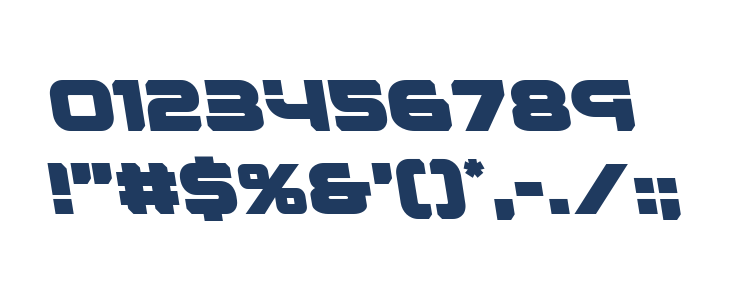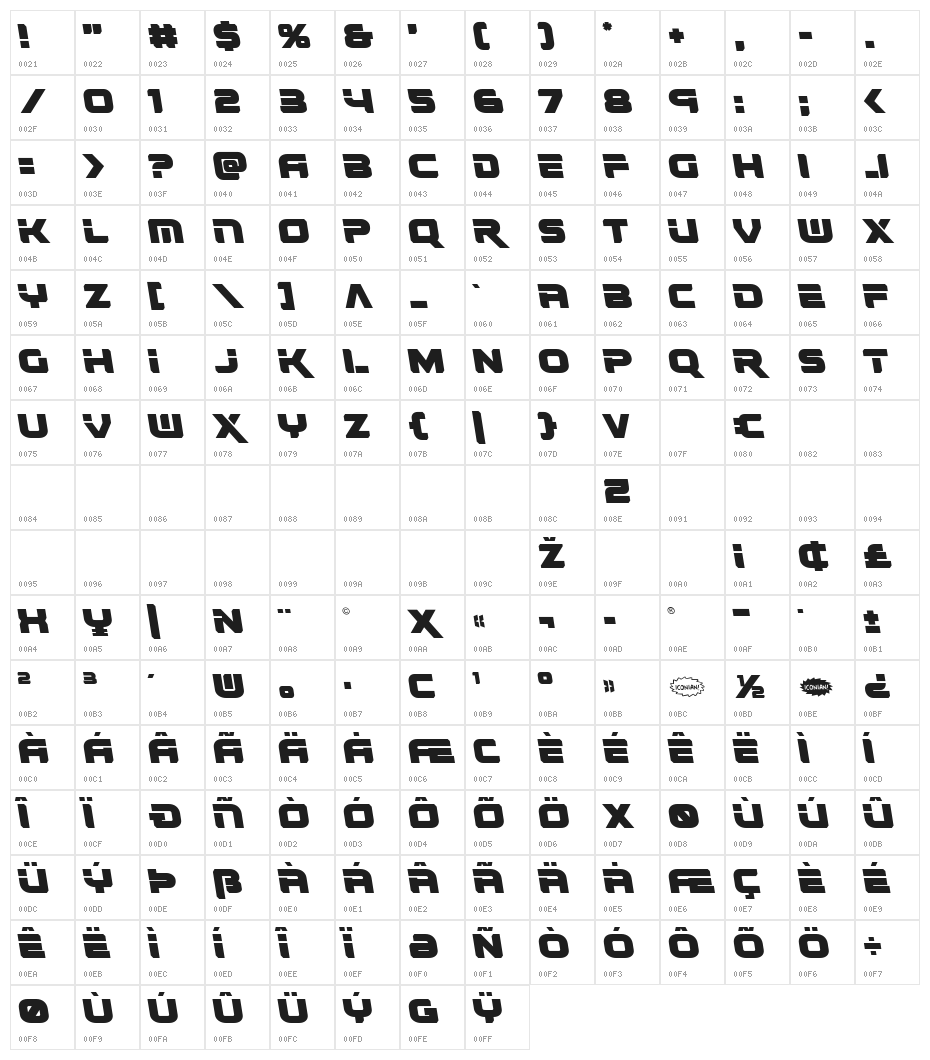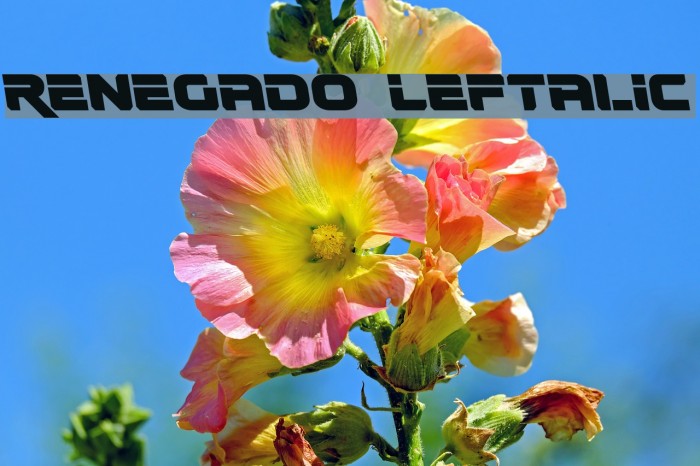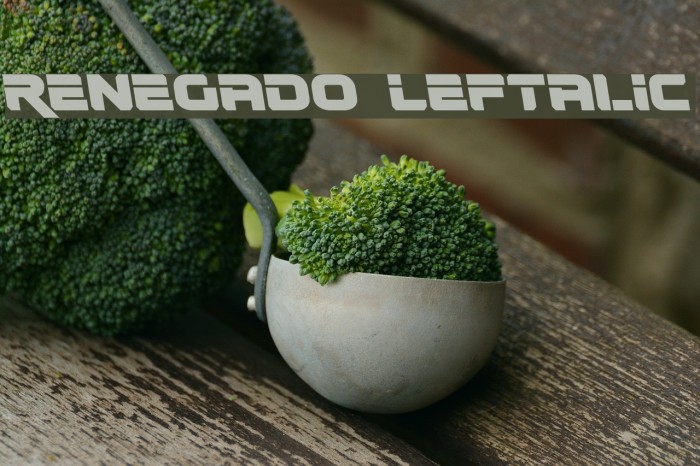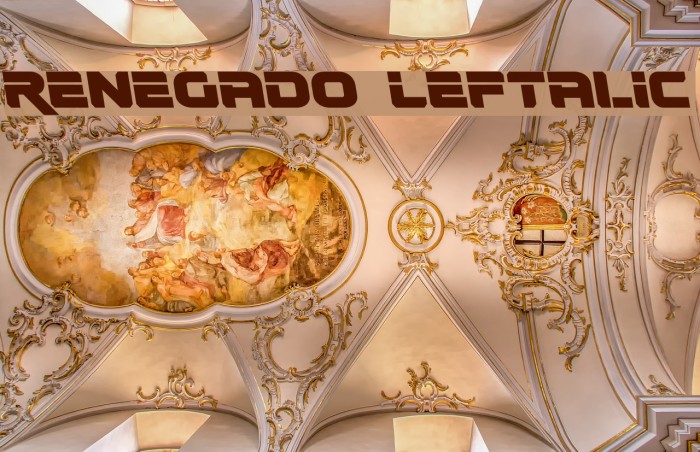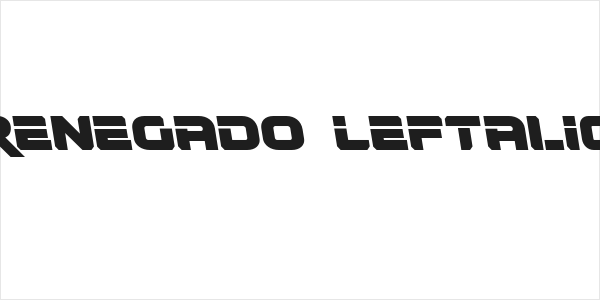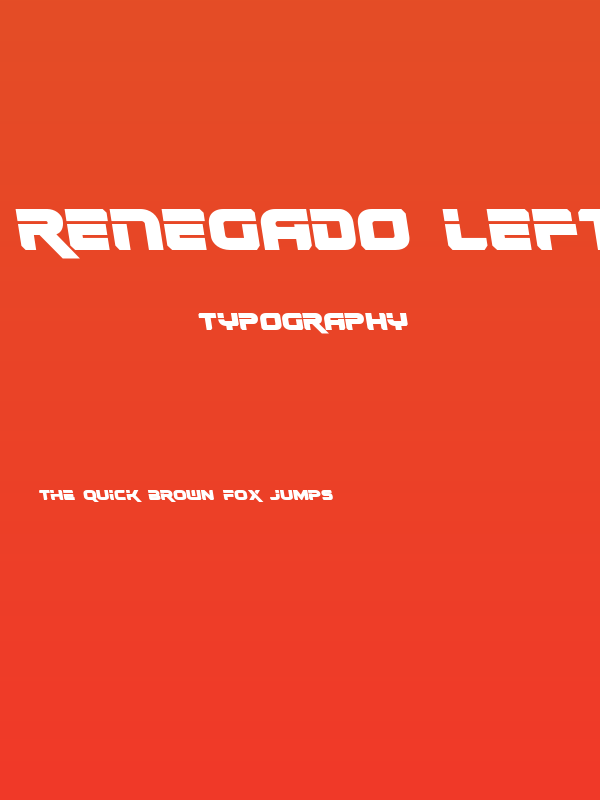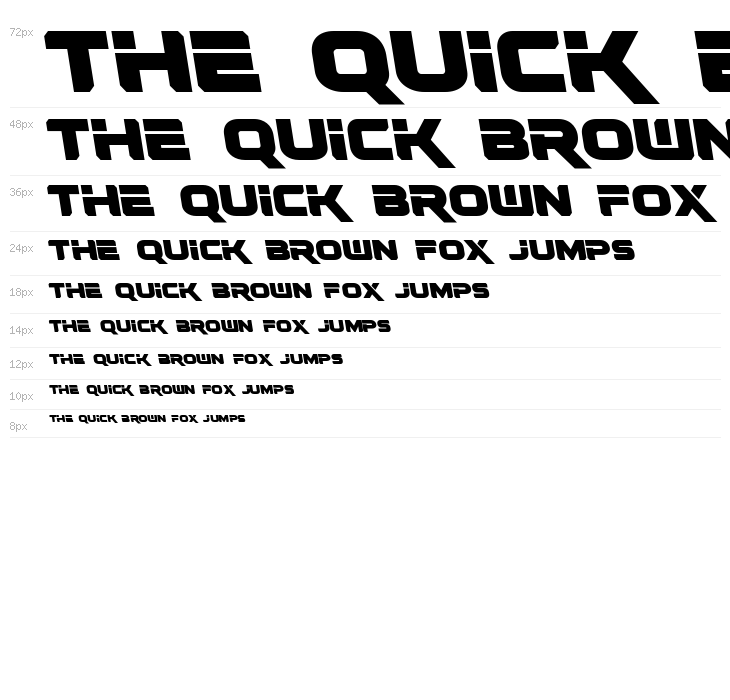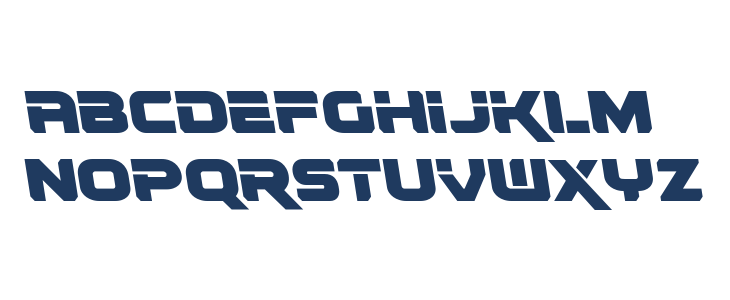
Renegado Leftalic Font
Renegado Leftalic Description
This font features a bold, futuristic design with a distinct slant to the left, giving it a dynamic and forward-moving appearance. The characters are wide and blocky, with sharp angles and a strong presence. The uppercase and lowercase letters maintain a consistent style, with the lowercase being slightly smaller but equally impactful. Numbers and special characters follow the same bold and angular design, ensuring uniformity across all text elements. The font's unique style makes it ideal for projects that require a modern and edgy look.
| Proposed Projects | Ideal for sci-fi themed designs, video game titles, tech branding, and modern posters. |